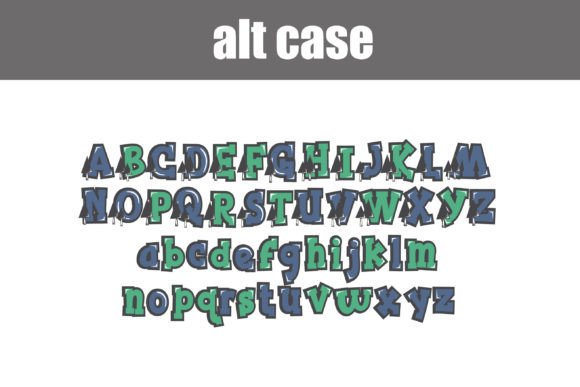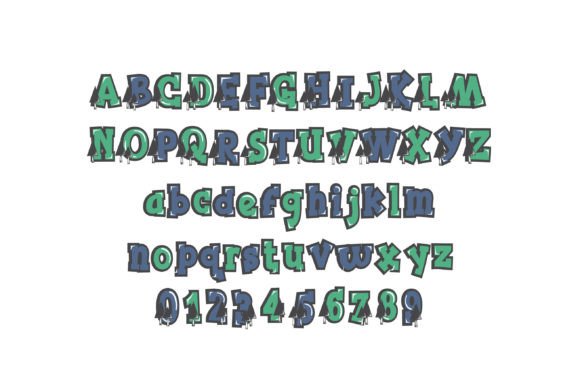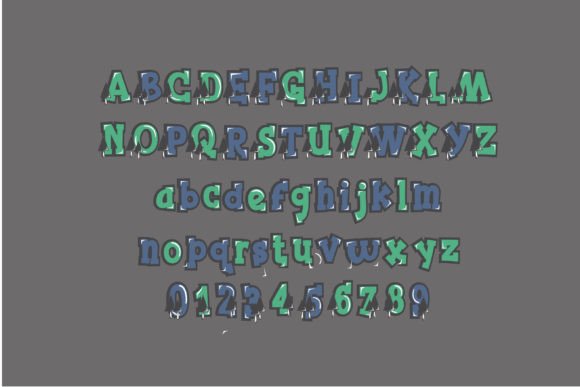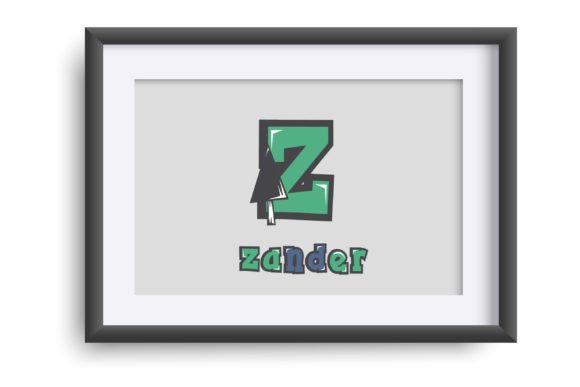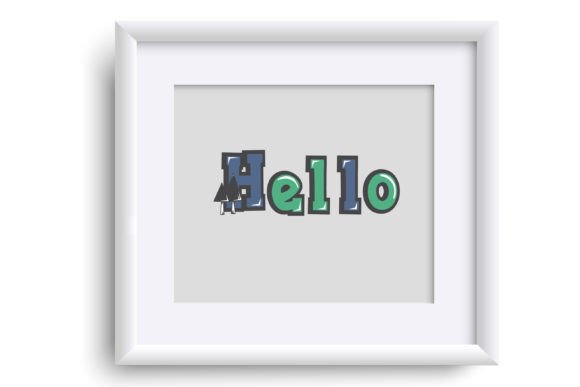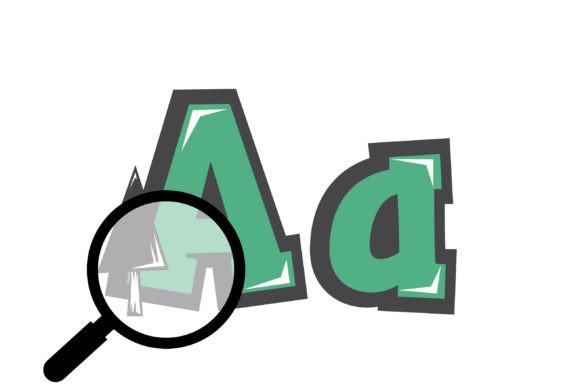
Introduction to Rustic Campground Font
This full-color font features a blocky, serif font with pine trees on the uppercase.
There is an alt case w/ additional colors you can access through your system or Silhouetteโs glyph map This font works best for titles, displays, posters and more.